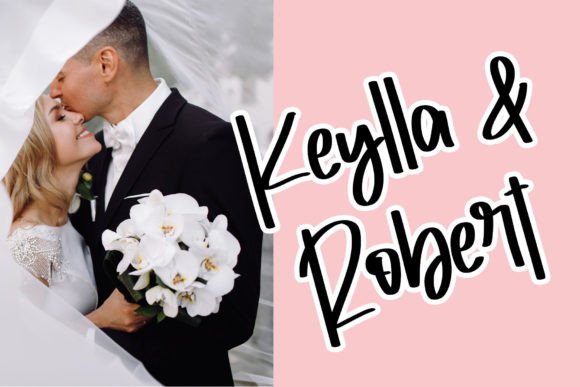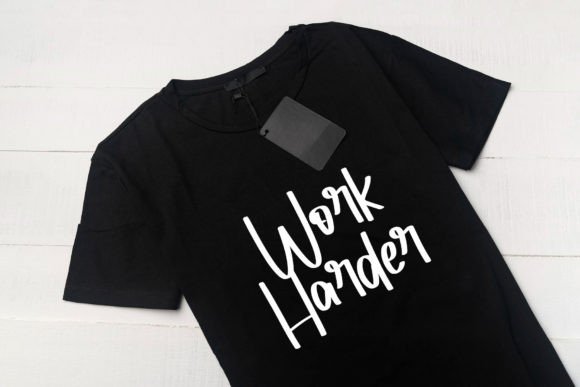
The Gabrilya Font: A Timeless, Elegant Touch for Your Designs
I’ll never forget the moment I stumbled upon the Gabrilya font. I was working on a project for a client who wanted an elegant, handwritten font that would make their brand stand out. I had spent hours scouring the internet for the perfect font, but nothing seemed quite right. That was until I discovered Gabrilya. Its flowing, cursive script and distinct style immediately caught my eye, and I knew I had found the one. In this article, I’ll share my love for the Gabrilya font, its features, and how to make the most of it in your designs.
A Personal Review: What I Love About Gabrilya
So, what makes Gabrilya so special? Here are a few things that I absolutely love about this font:
- ✨ Elegant and sophisticated: Gabrilya has an undeniably elegant touch that makes it perfect for high-end brands, wedding invitations, and other luxury designs.
- ✅ Distinct and timeless style: The font’s unique style is both classic and modern, making it versatile and adaptable to various design contexts.
- 💫 Flowing and handwritten: Gabrilya’s cursive script has a beautiful, organic feel that adds a touch of personality to any design.
While Gabrilya is an amazing font, there are a few quirks to be aware of:
- 🤔 Limited use in body text: Due to its elegant, cursive nature, Gabrilya might not be the best choice for long blocks of body text. It’s better suited for headings, titles, and short paragraphs.
- ⚠️ Requires attention to spacing: As with any script font, Gabrilya requires careful attention to spacing to ensure that it looks its best. You may need to adjust the tracking and kerning to achieve the desired effect.
Gabrilya was designed with elegance and sophistication in mind. The font’s creator was inspired by classic calligraphy and handwriting styles, with a goal of creating a font that would be both timeless and versatile. The result is a beautiful, flowing script that adds a touch of personality to any design.
| What is Gabrilya font best used for? | Gabrilya is best used for designs that require an elegant, handwritten touch, such as luxury brands, wedding invitations, and high-end designs. |